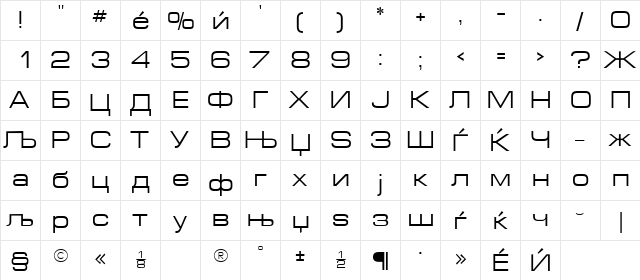
X_Europe Normal Font Preview
X_Europe Normal
X_Europe Normal Font Details
Design Context for X_Europe Typeface
X_Europe takes a measured approach to typography — its balanced proportions and neutral character make it a reliable workhorse for both digital and print work.